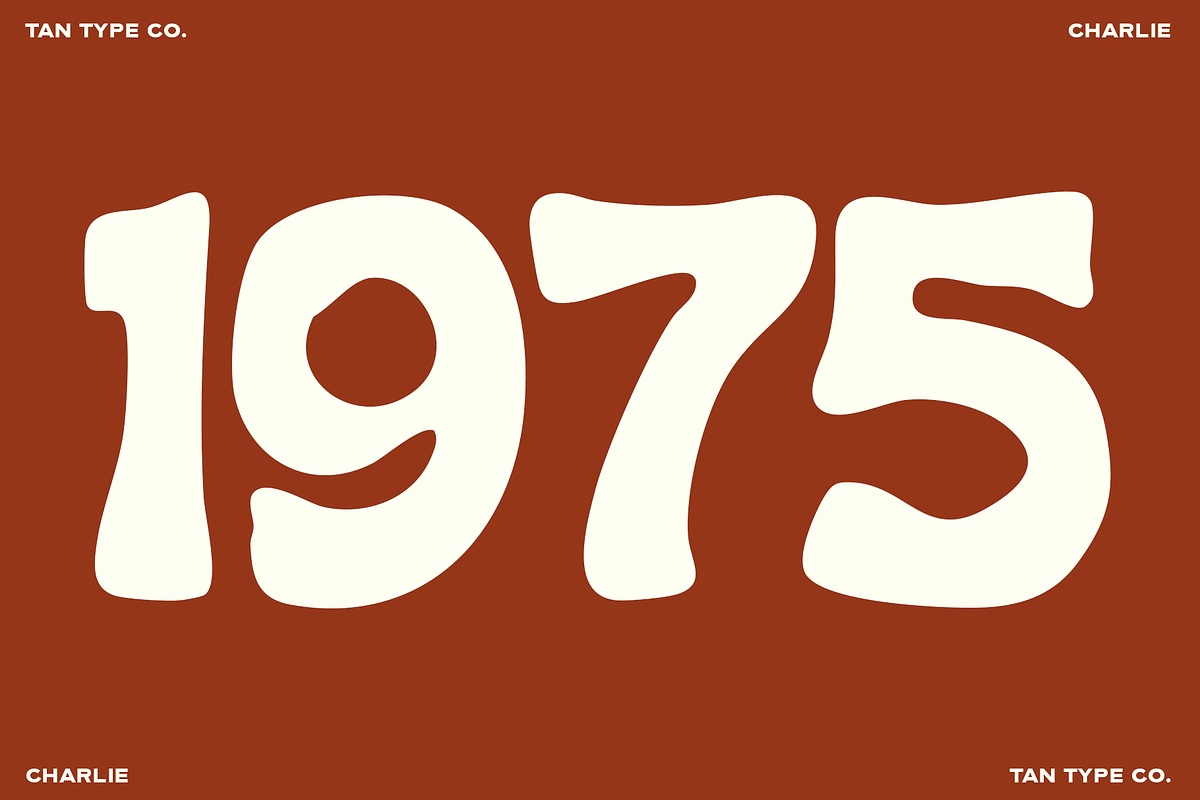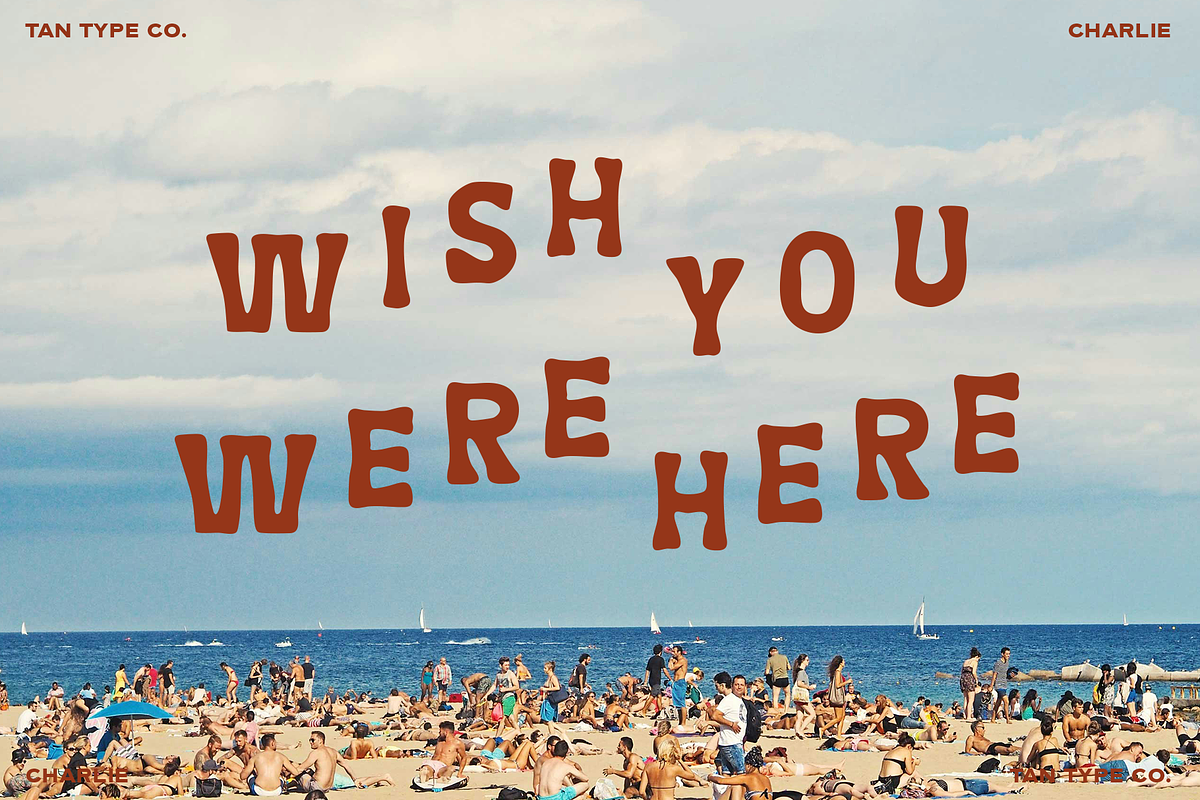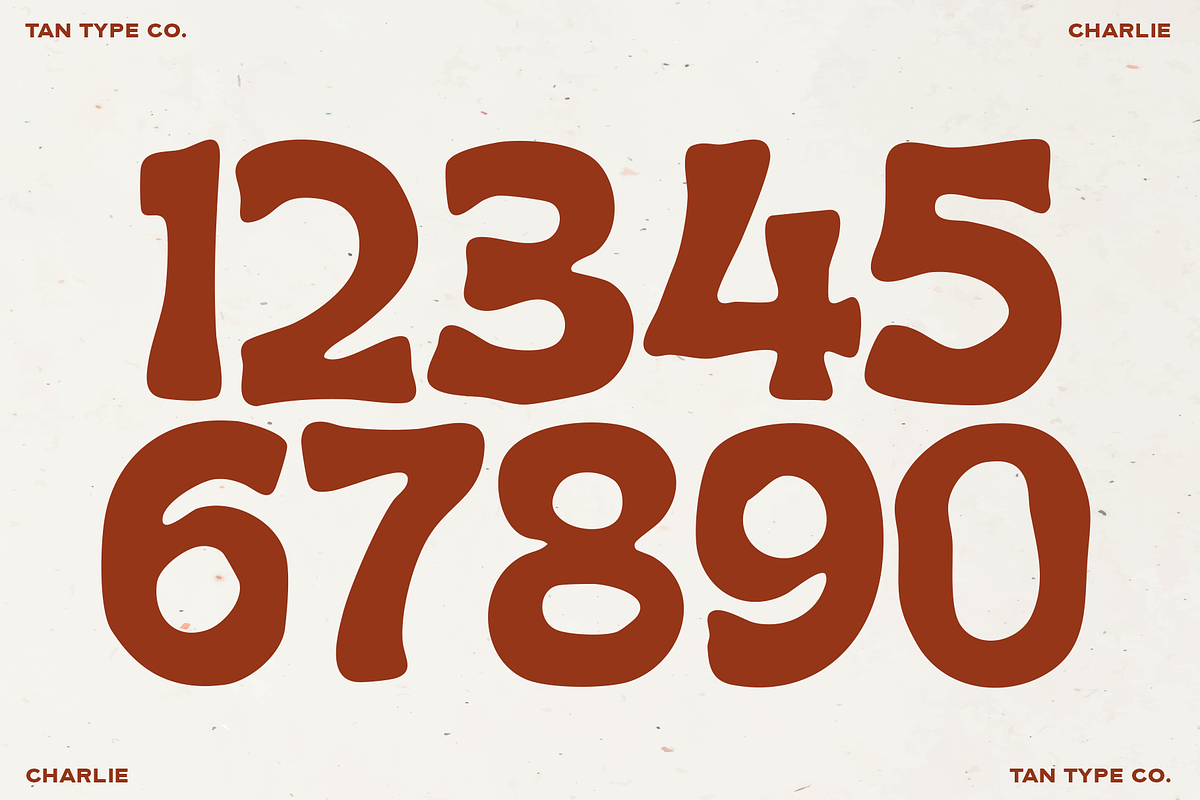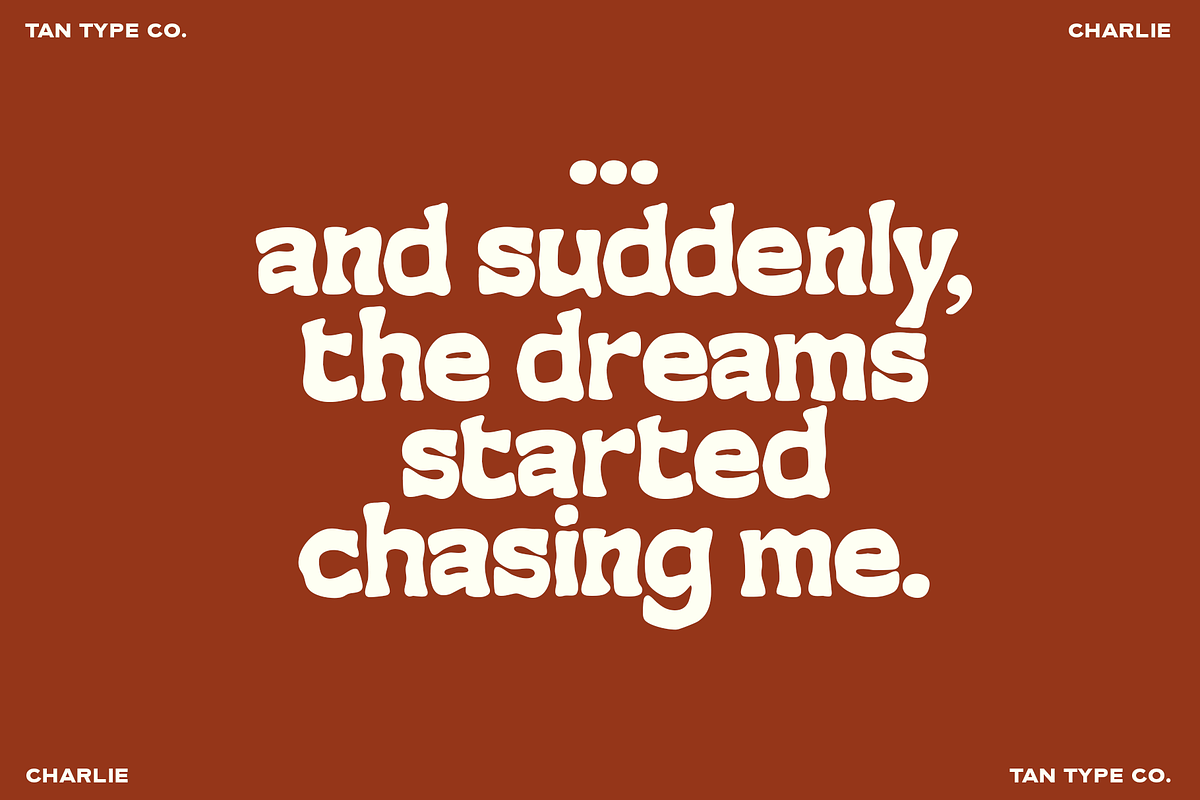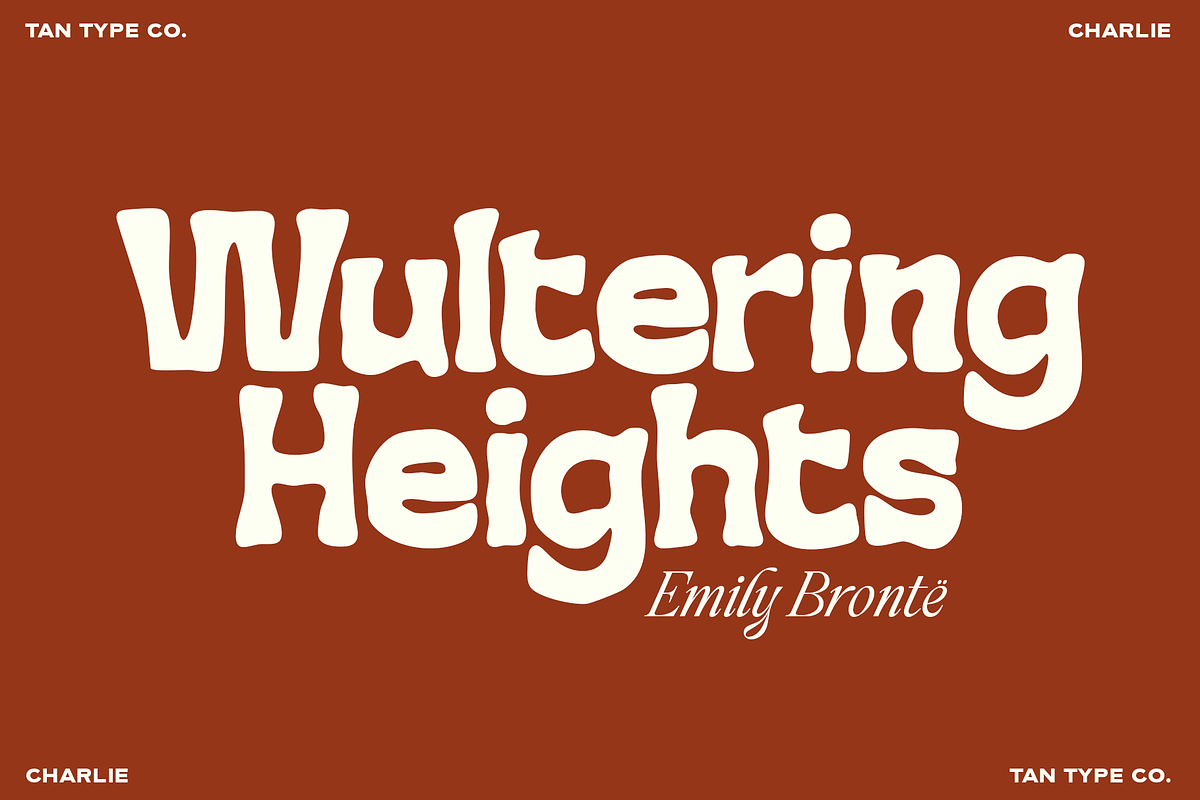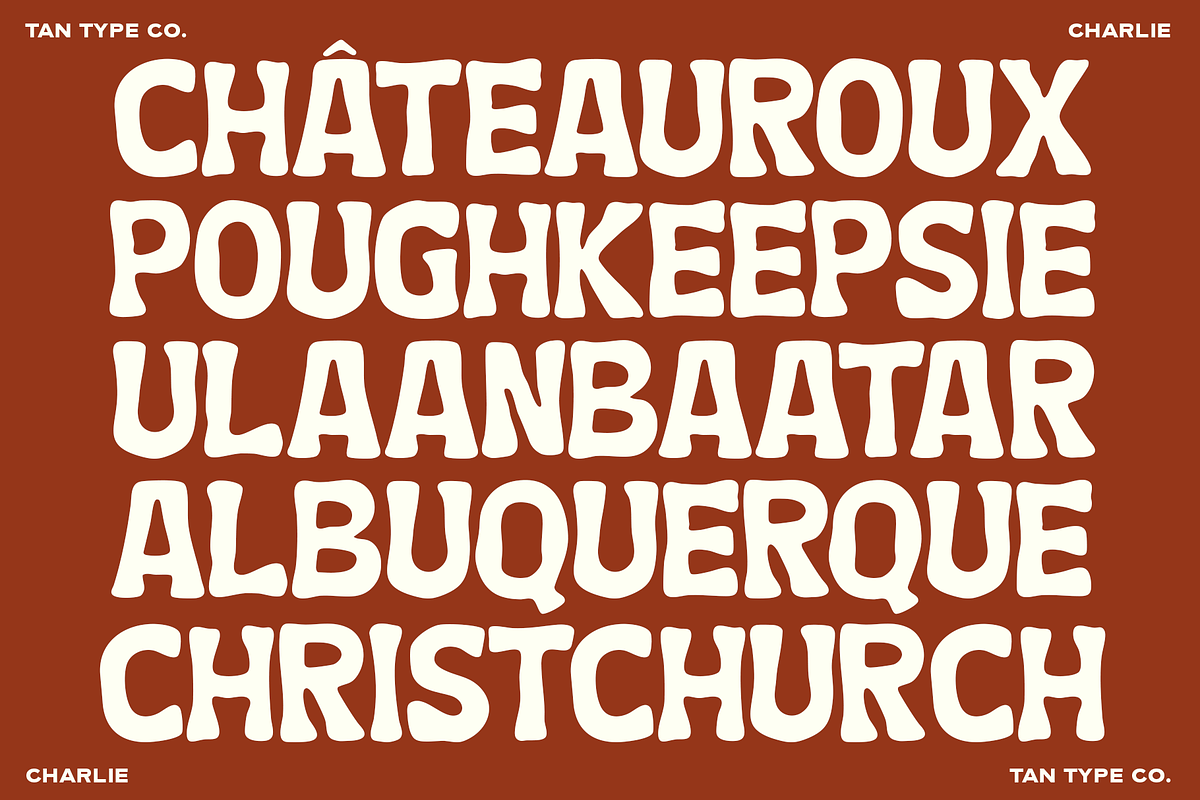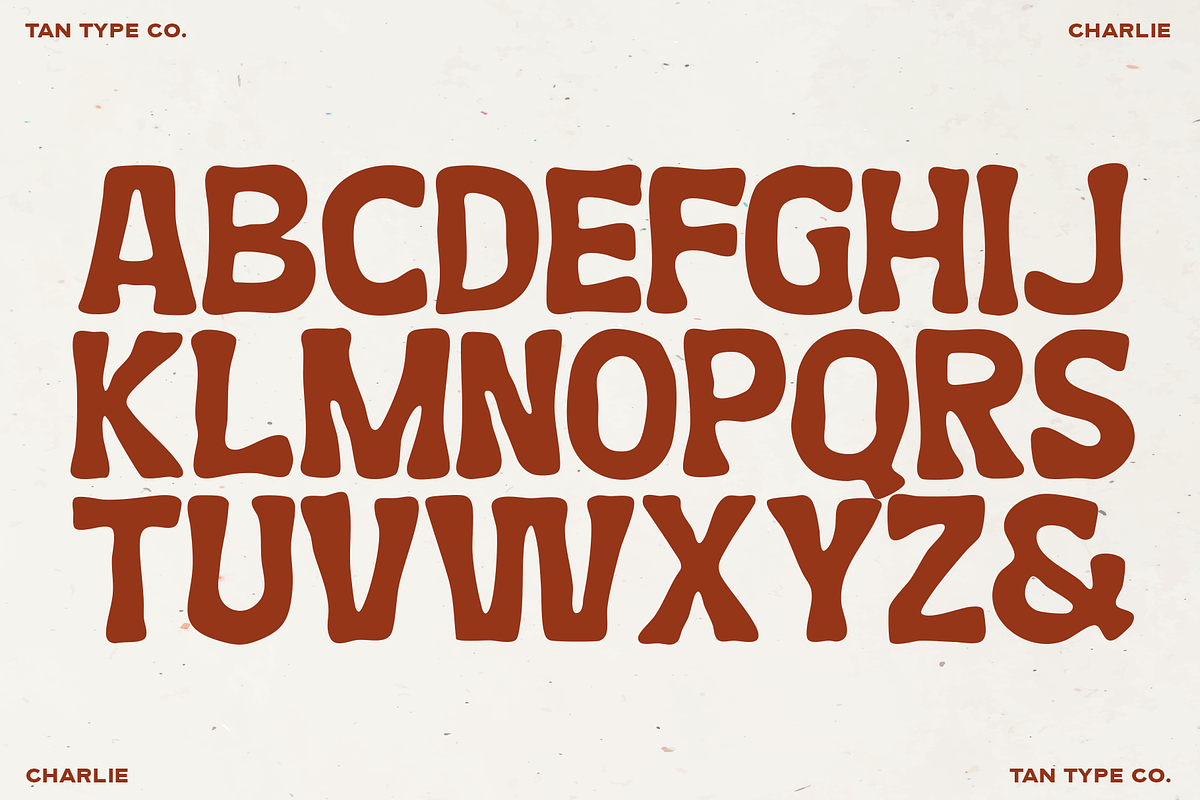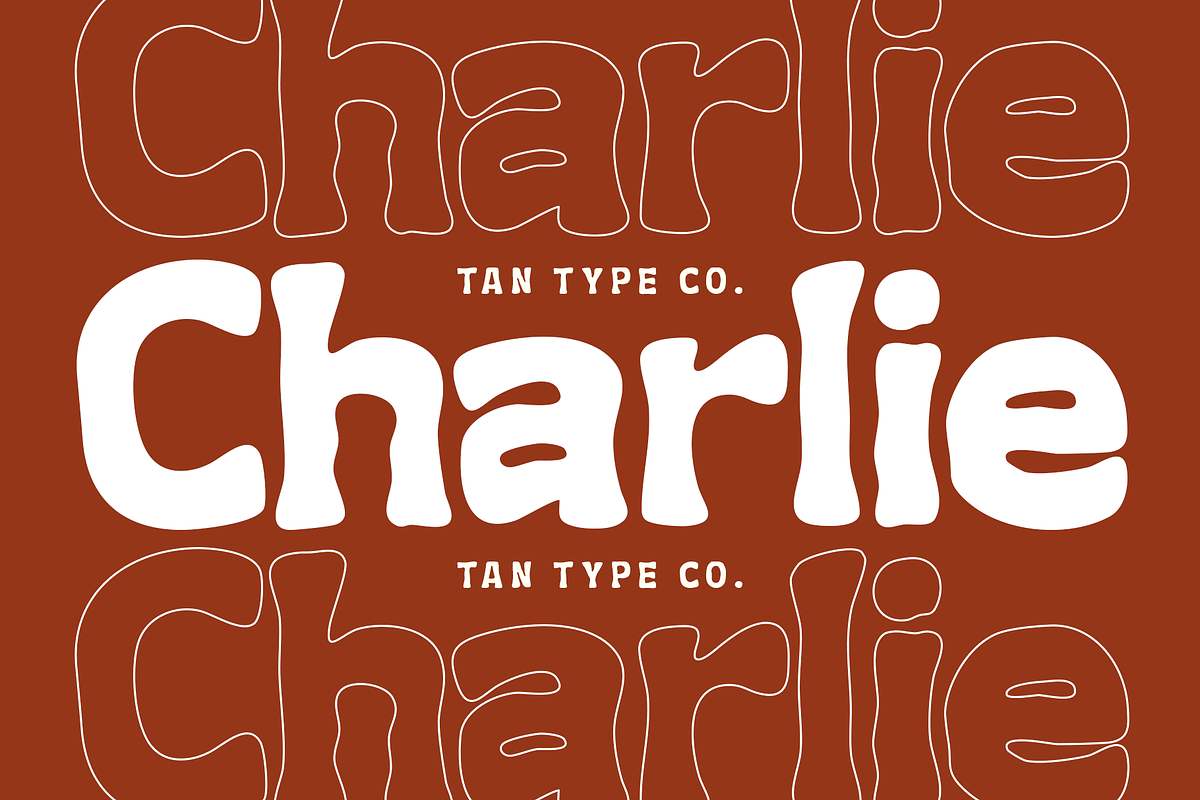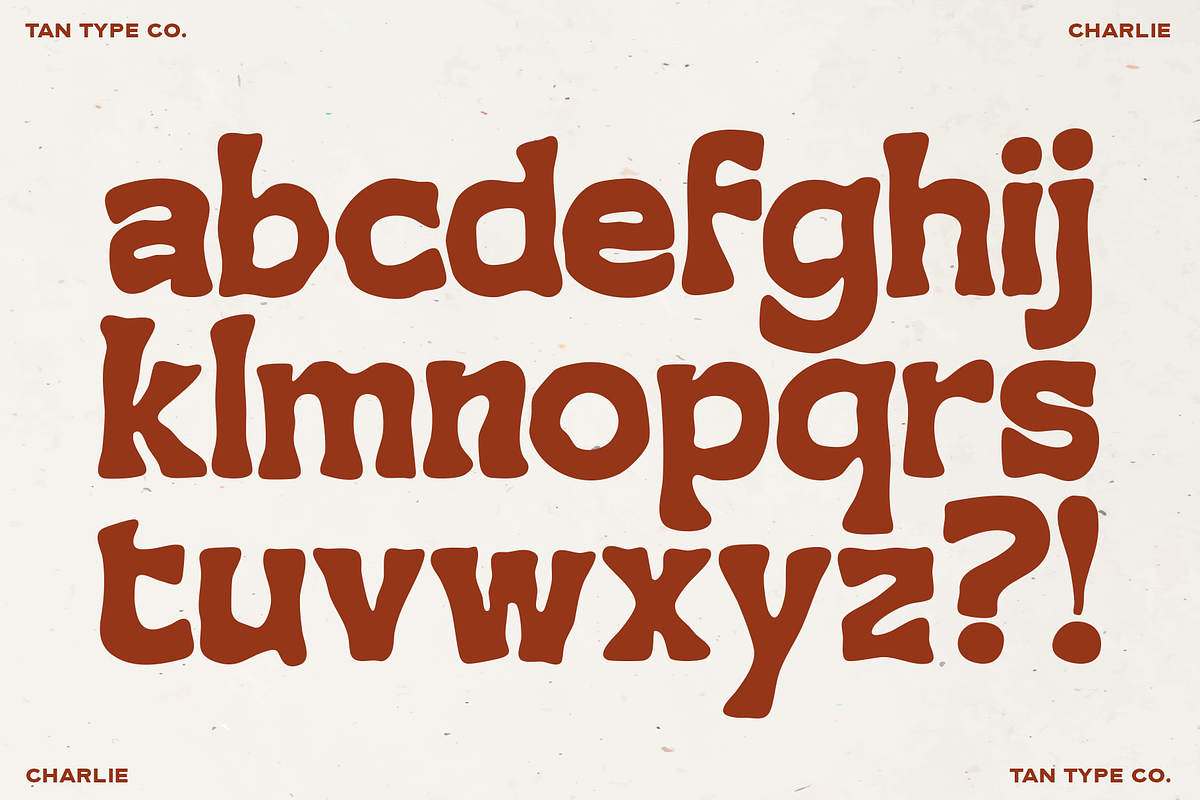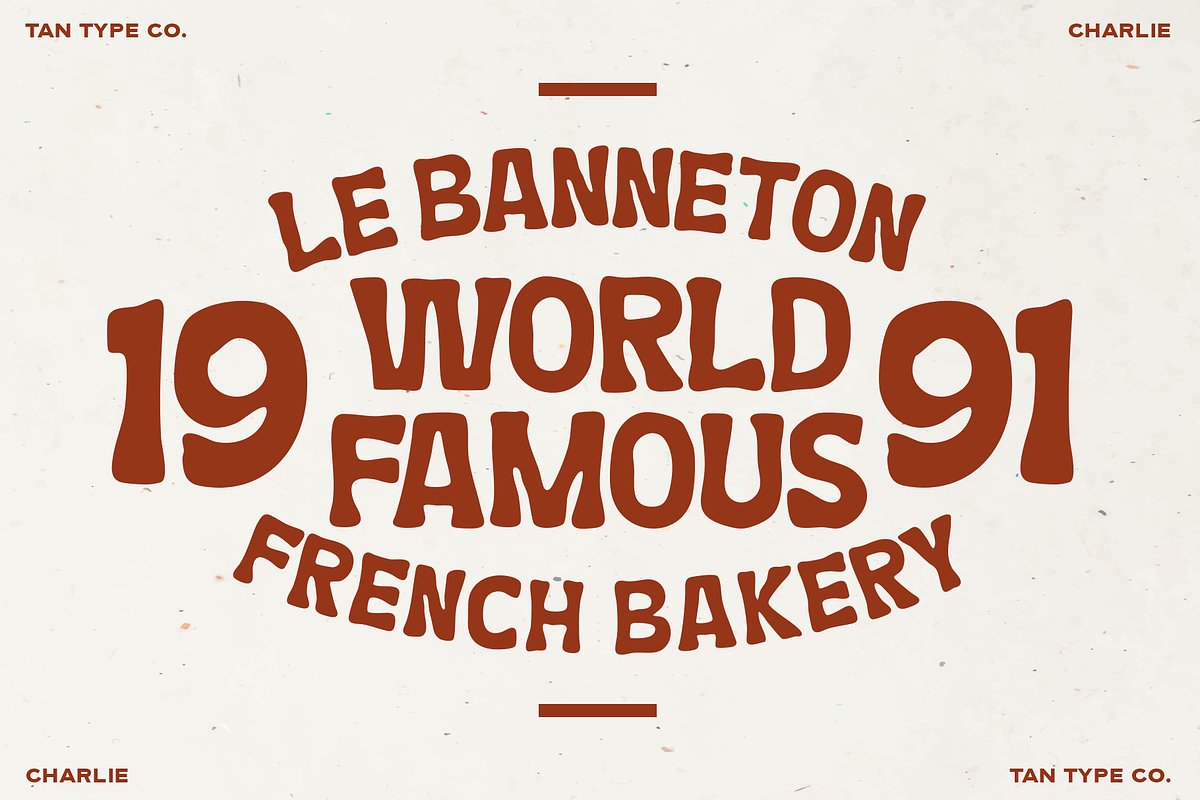
TAN - CHARLIE
Meet Charlie, a hand-drawn sans serif typeface that blends playful energy with a warm, nostalgic spirit. Its gently uneven lines and organic shapes give it a relaxed, human feel — like something sketched by hand, imperfect in all the right ways. Charlie is not just whimsical — it’s versatile. With subtle retro hints and a personality that feels both familiar and fresh, it works beautifully across a range of design styles, from modern to vintage-inspired.